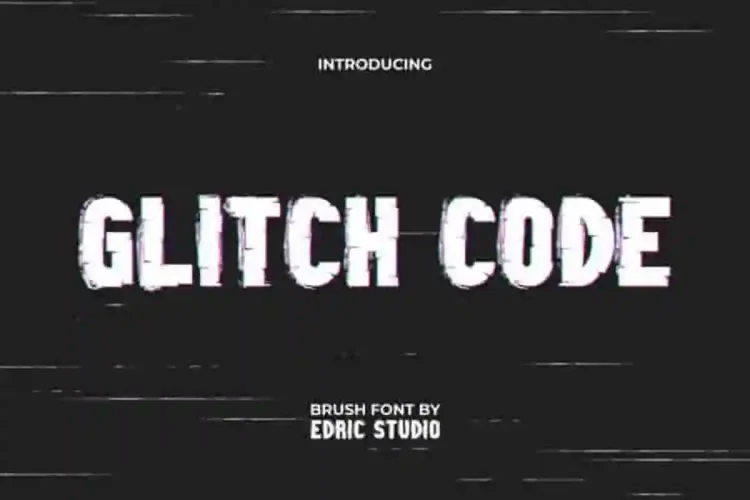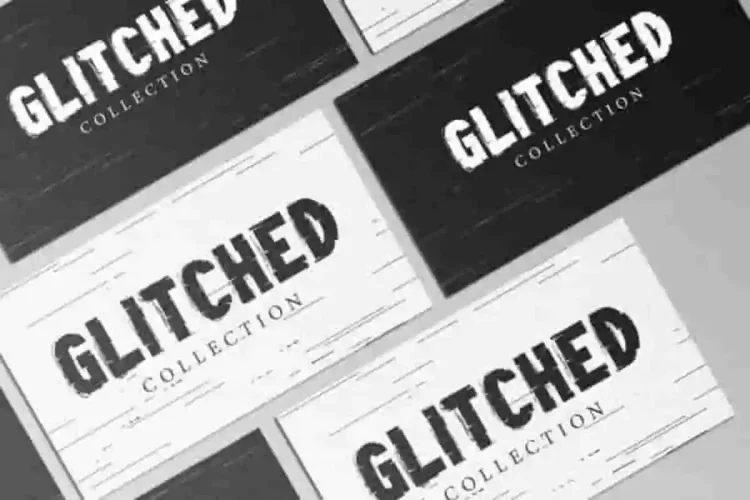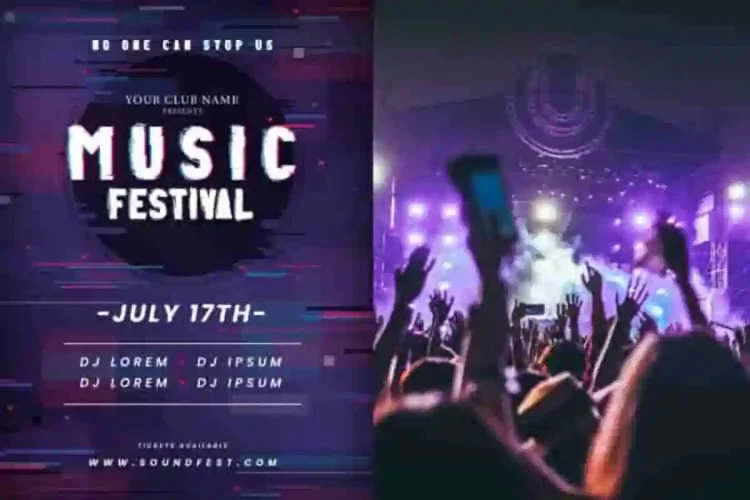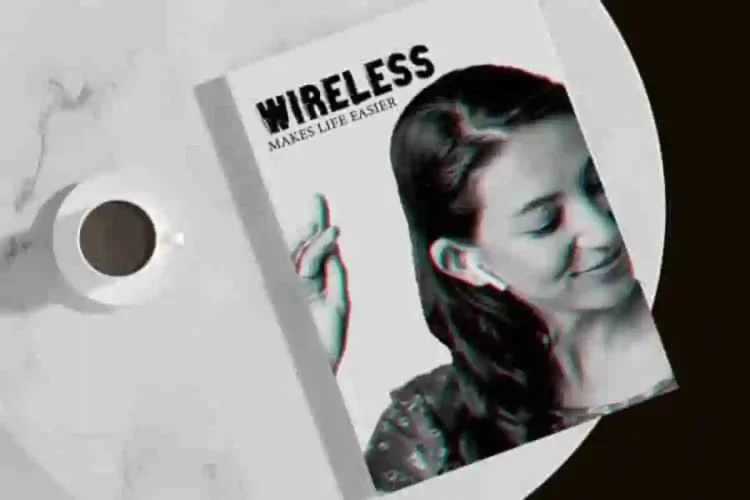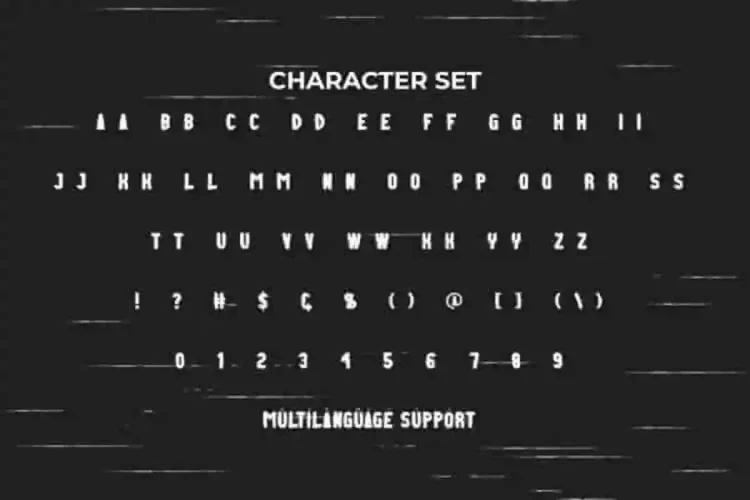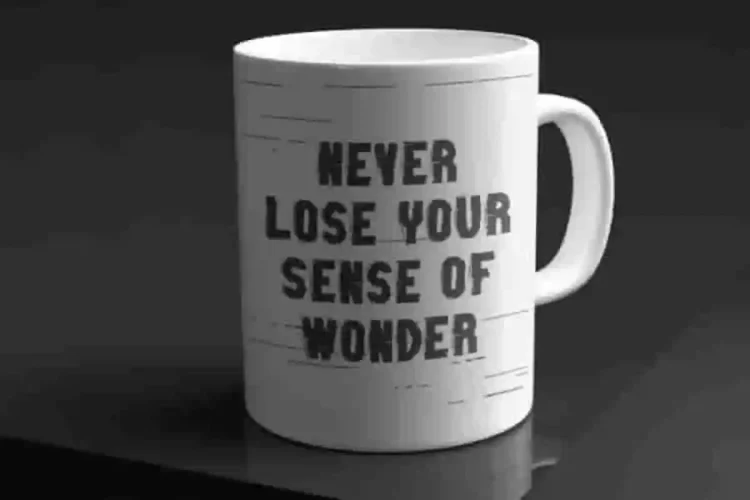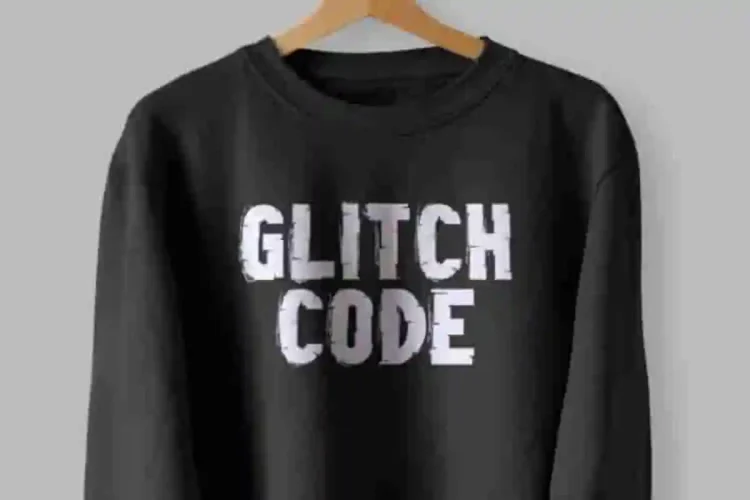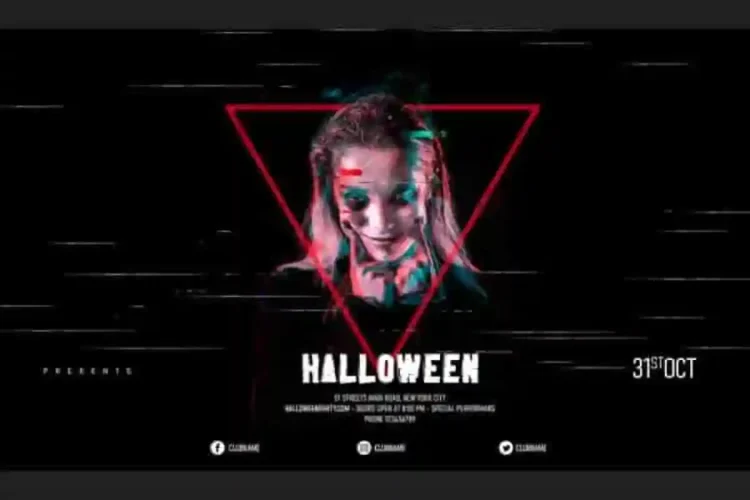
Glitch Code Display Brush Font
Glitch Code Font a bold techno sci-fi block display typeface created by EdricStudio. This font has a glitch effect on each character that makes it stand out cool and suitable for any industry, including: accessories, barbershop, brand fashion, coffee palace, event or festival, fitness products, game, glassware, halloween party, handicraft, menswear, movie, music, photography, printing, publishing, sport, and many more.
Glitch Code Display Brush Font the font includes ALL CAPS characters for uppercase and lowercase, numbers, punctuation, symbols, and multilingual support.It has a stunning characters set, perfectly managed with well spaced and kerning.